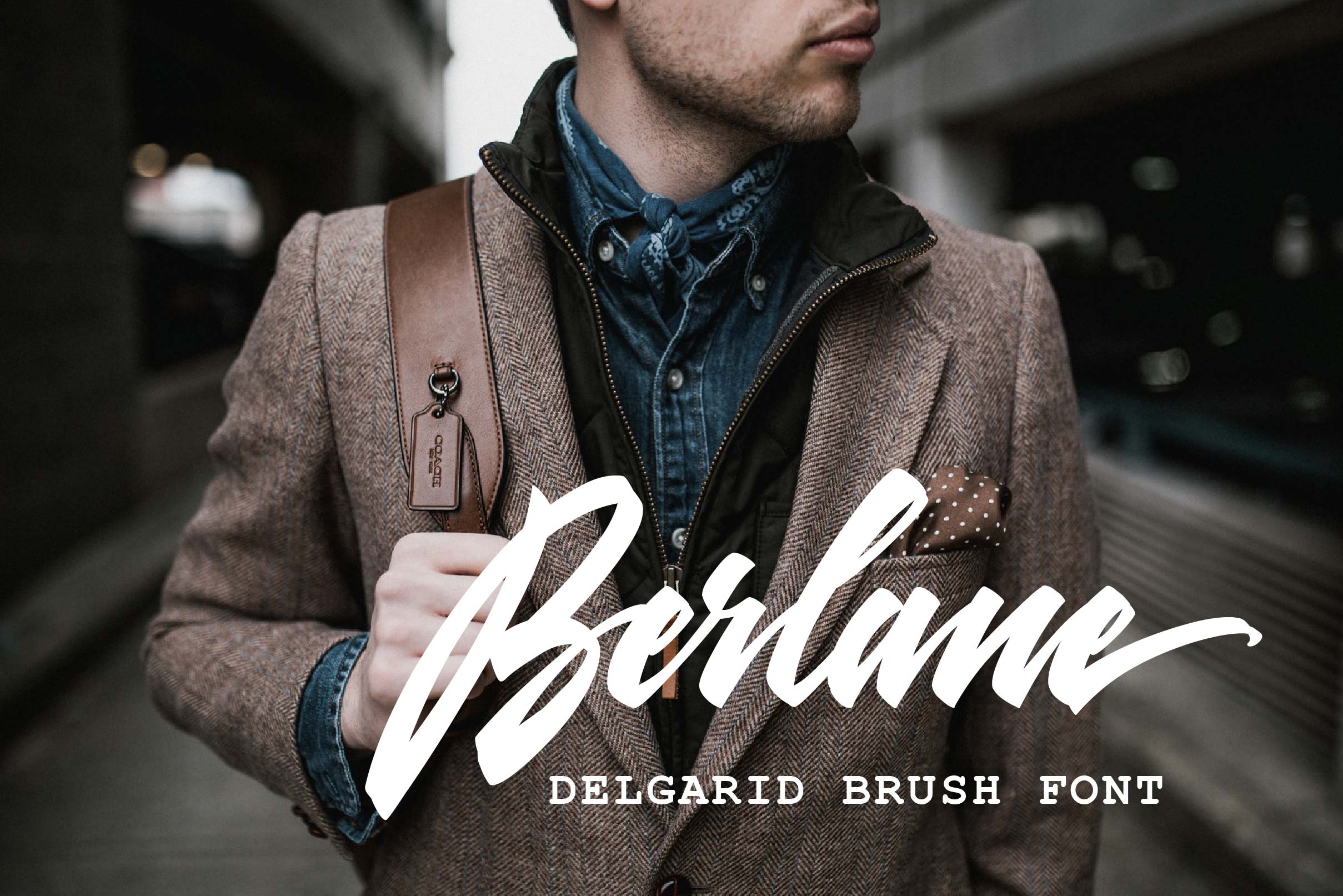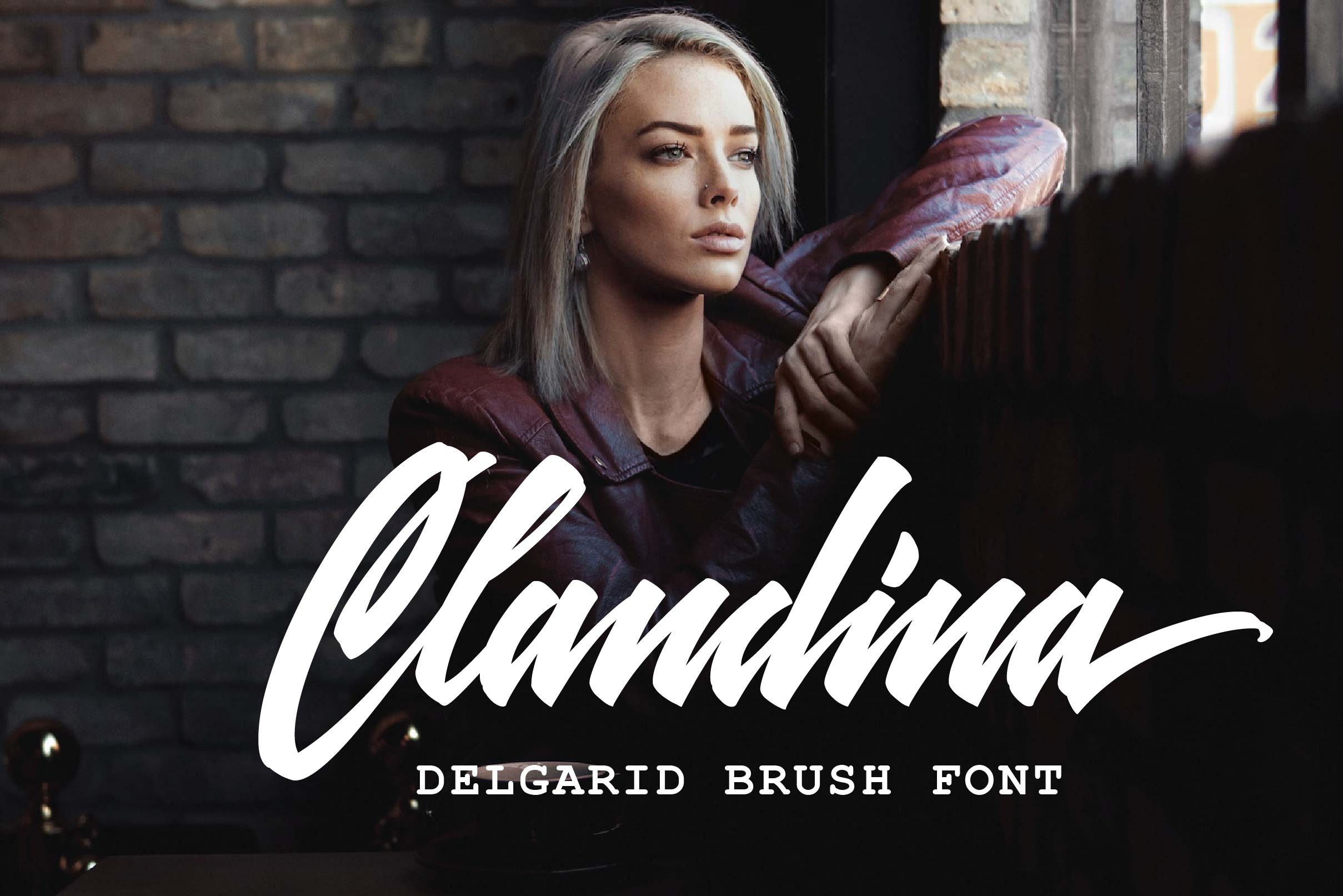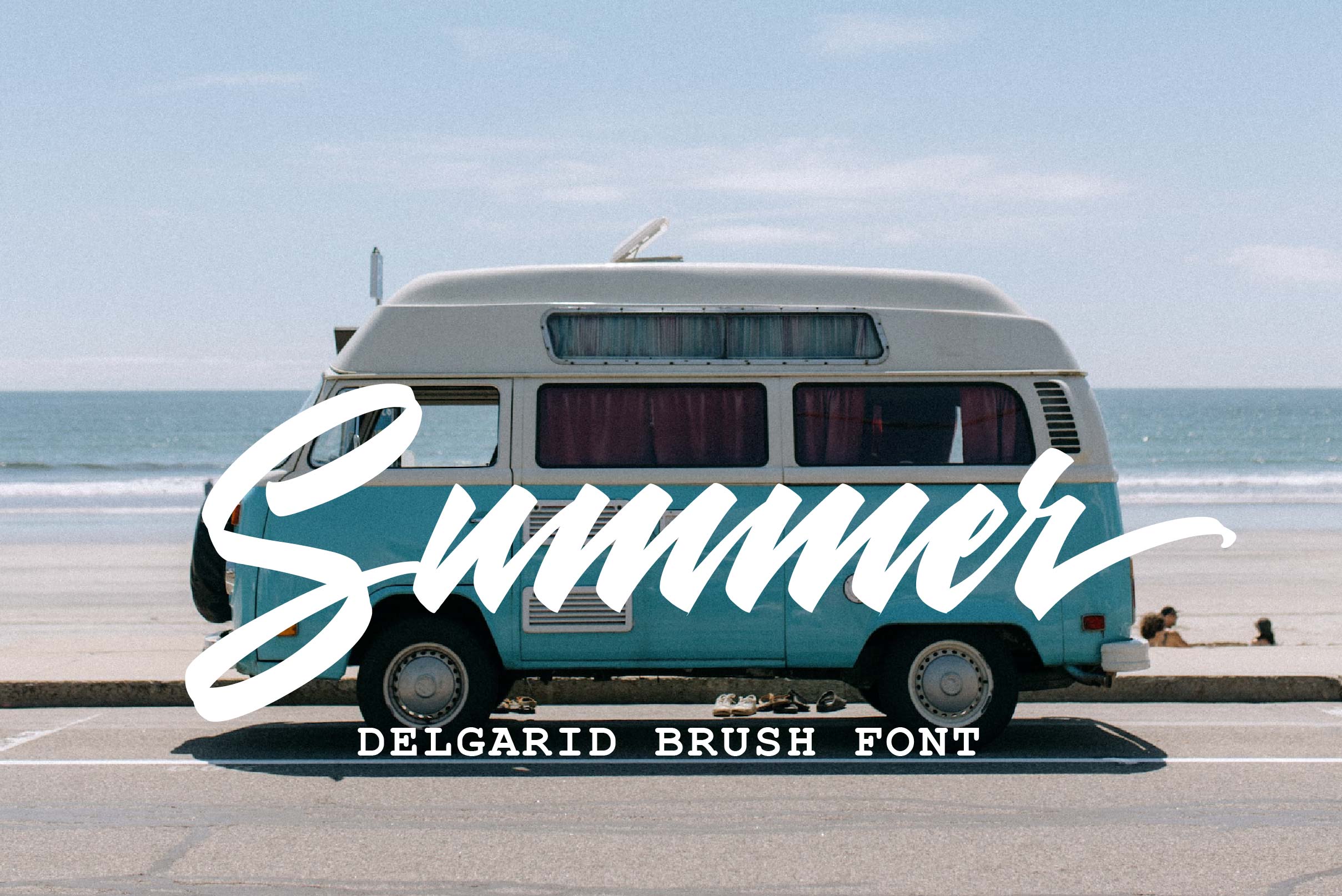
Delgoraid Font
Delgoraid Brush Font is a futuristic brushed handwritten font. It looks wonderful in a variety of contexts, and it will add a trendy and unique touch to each of your designs.